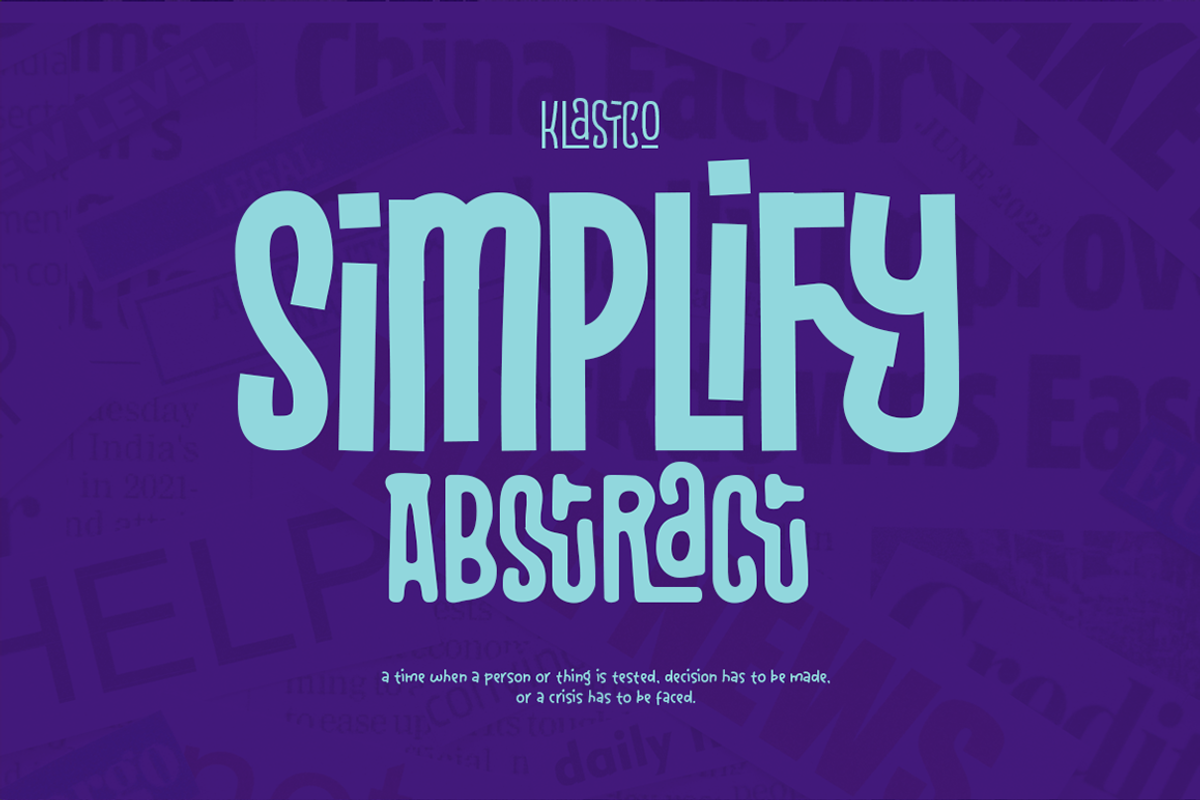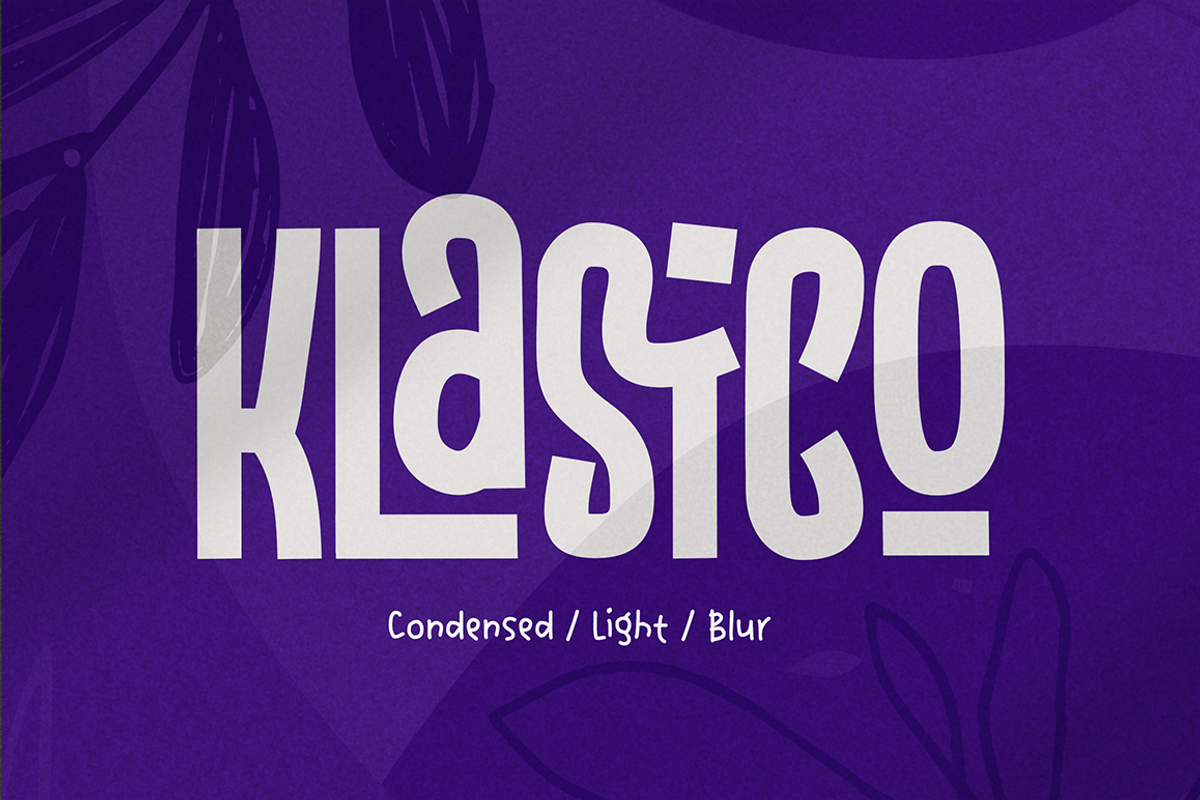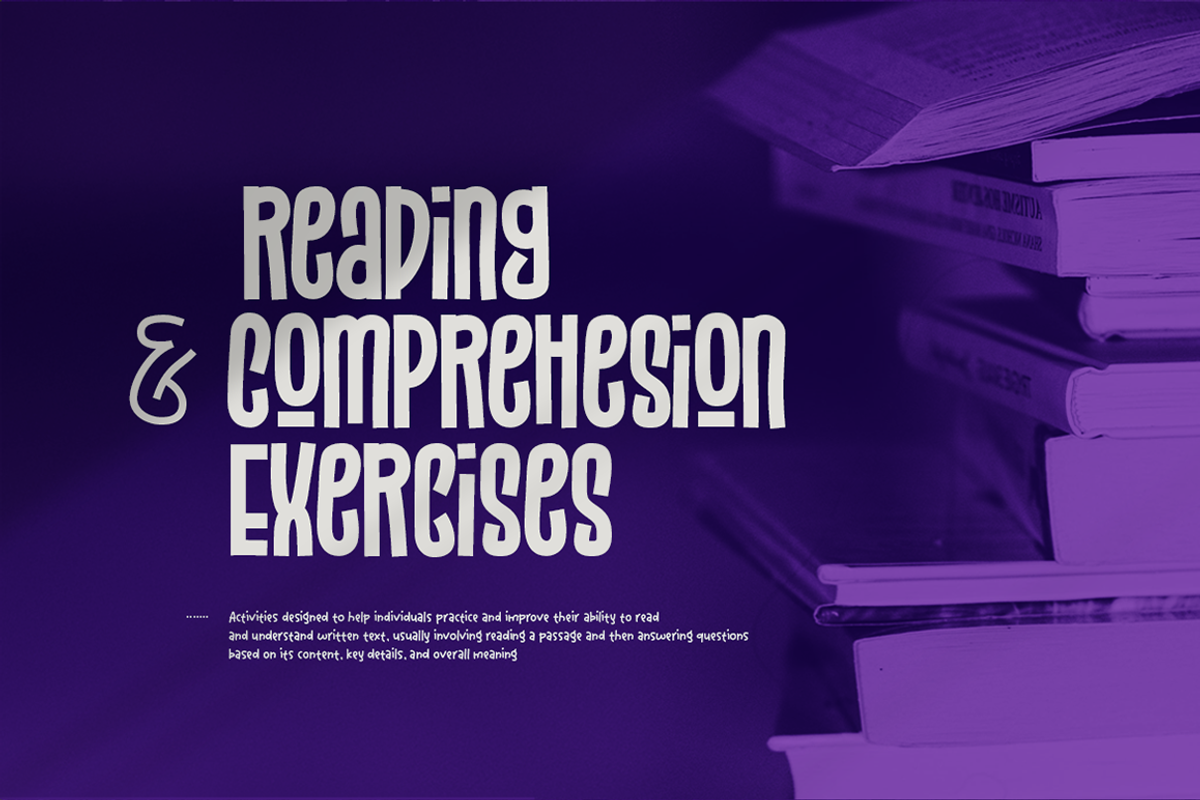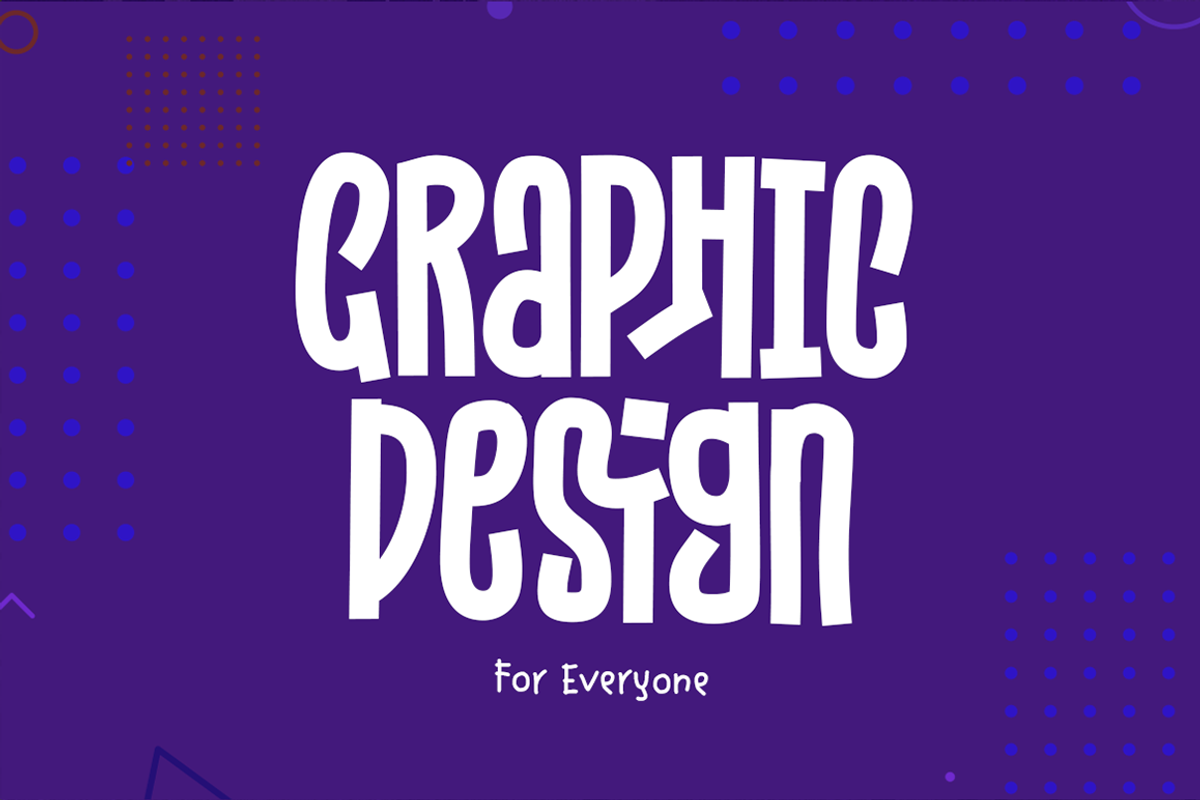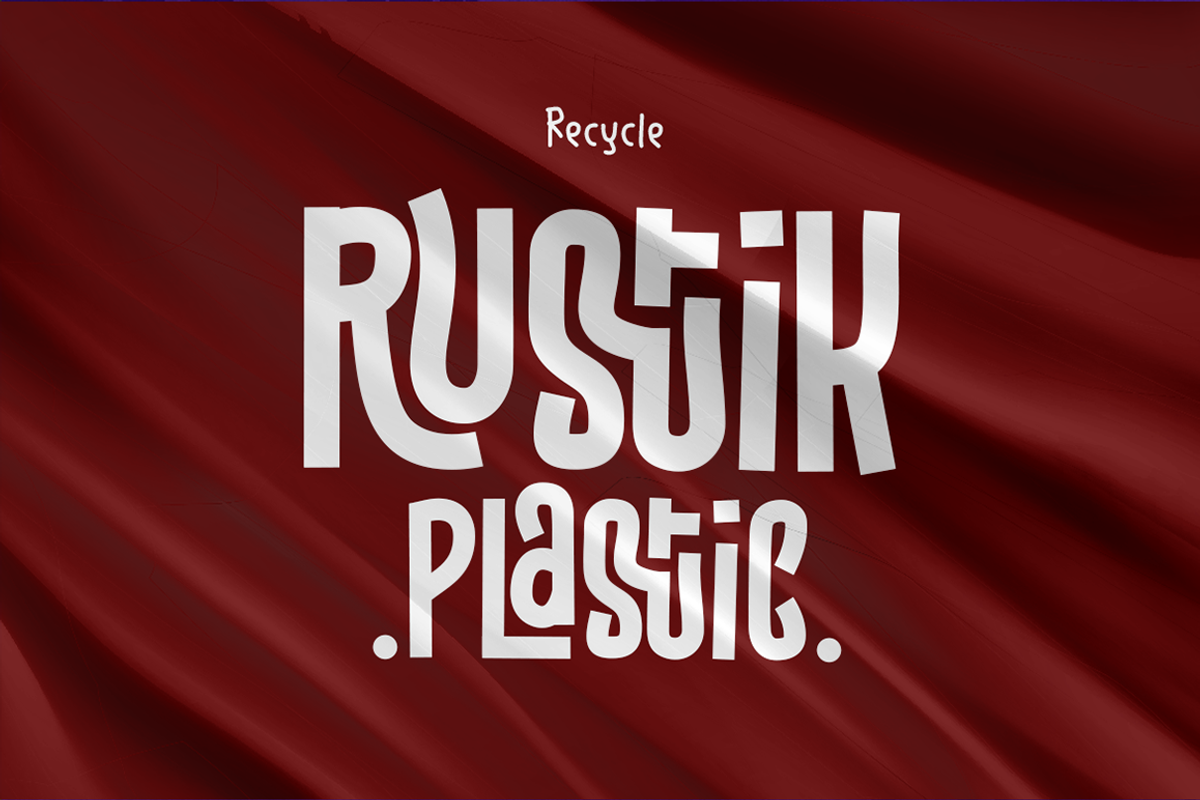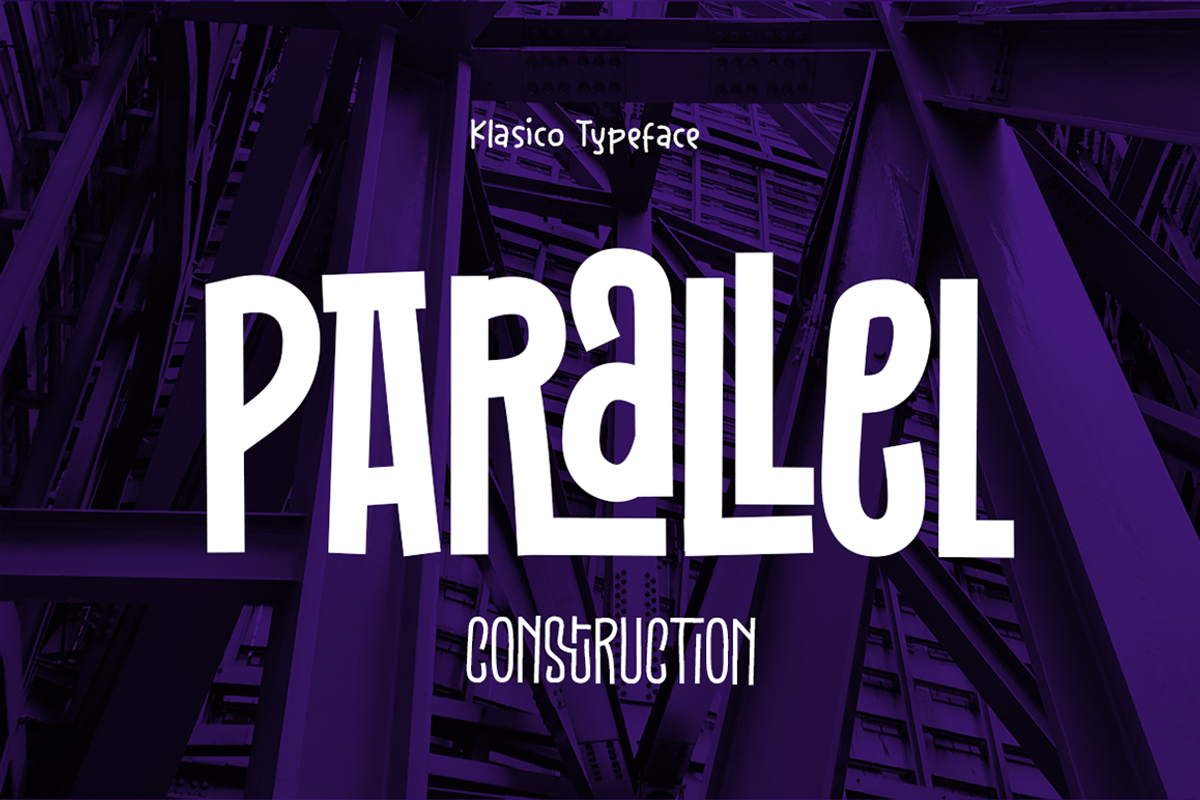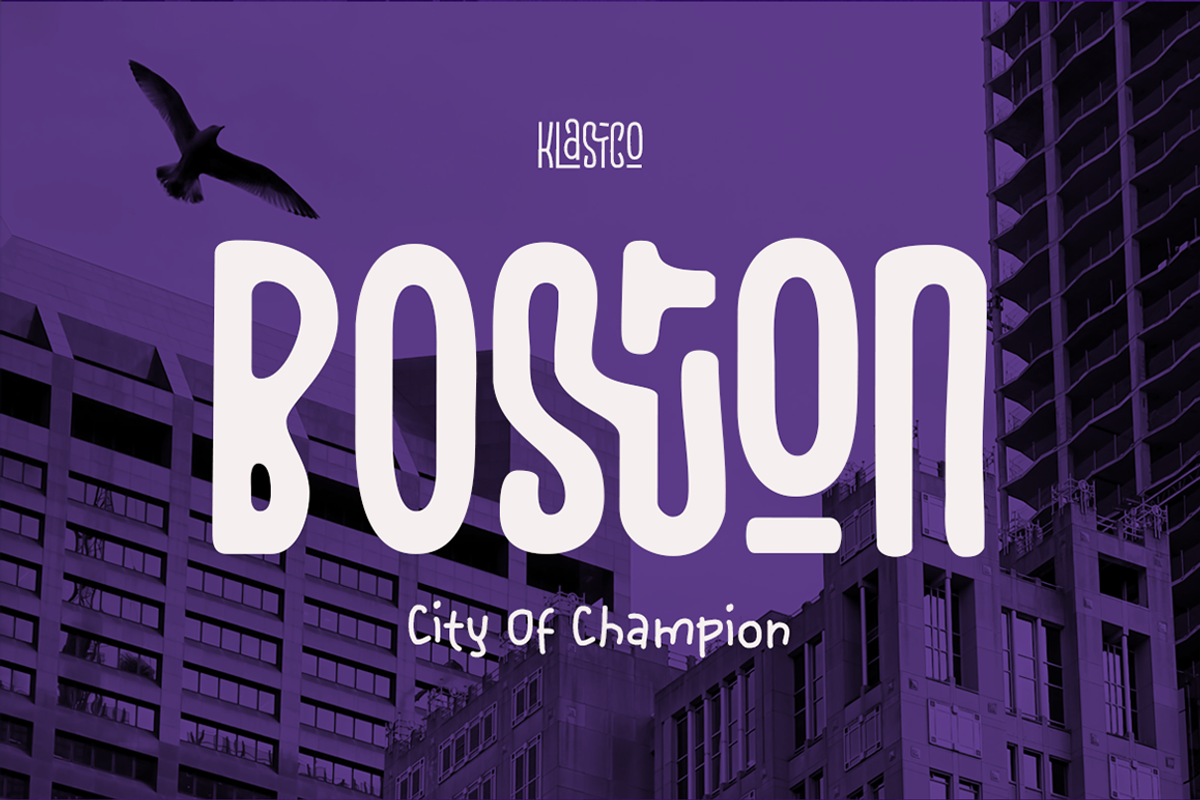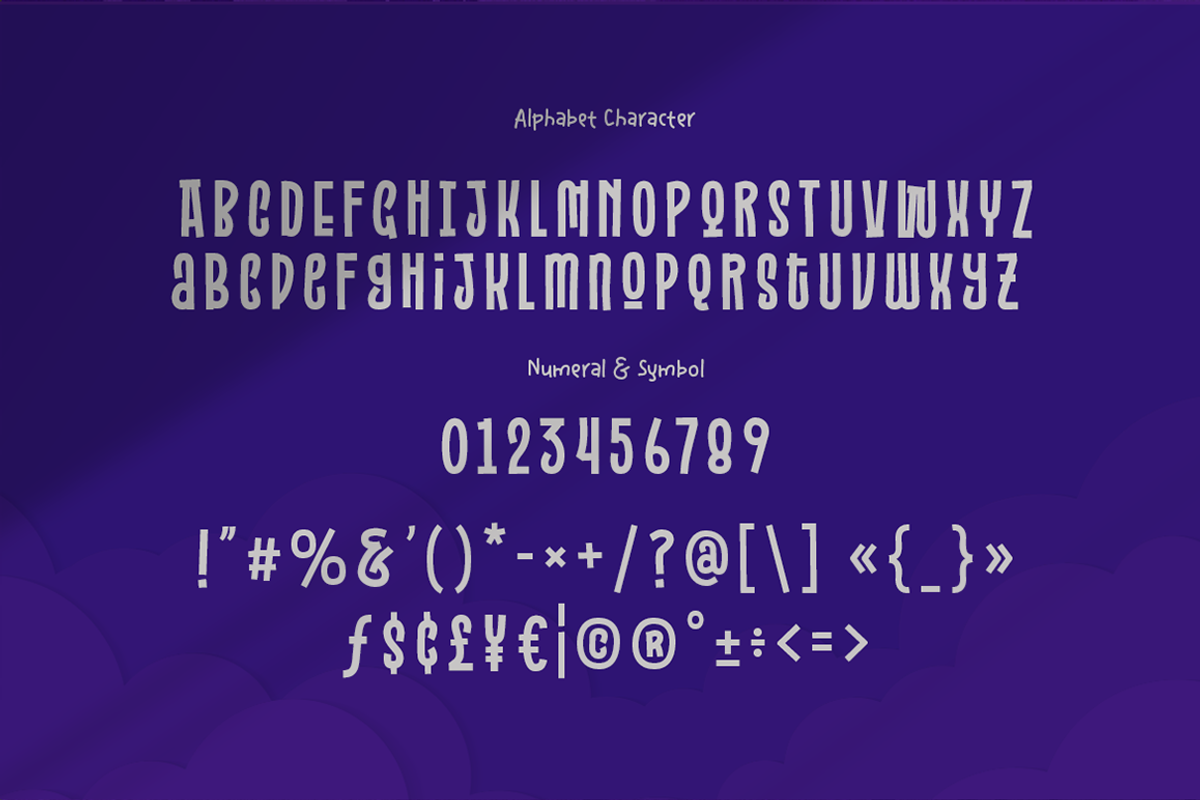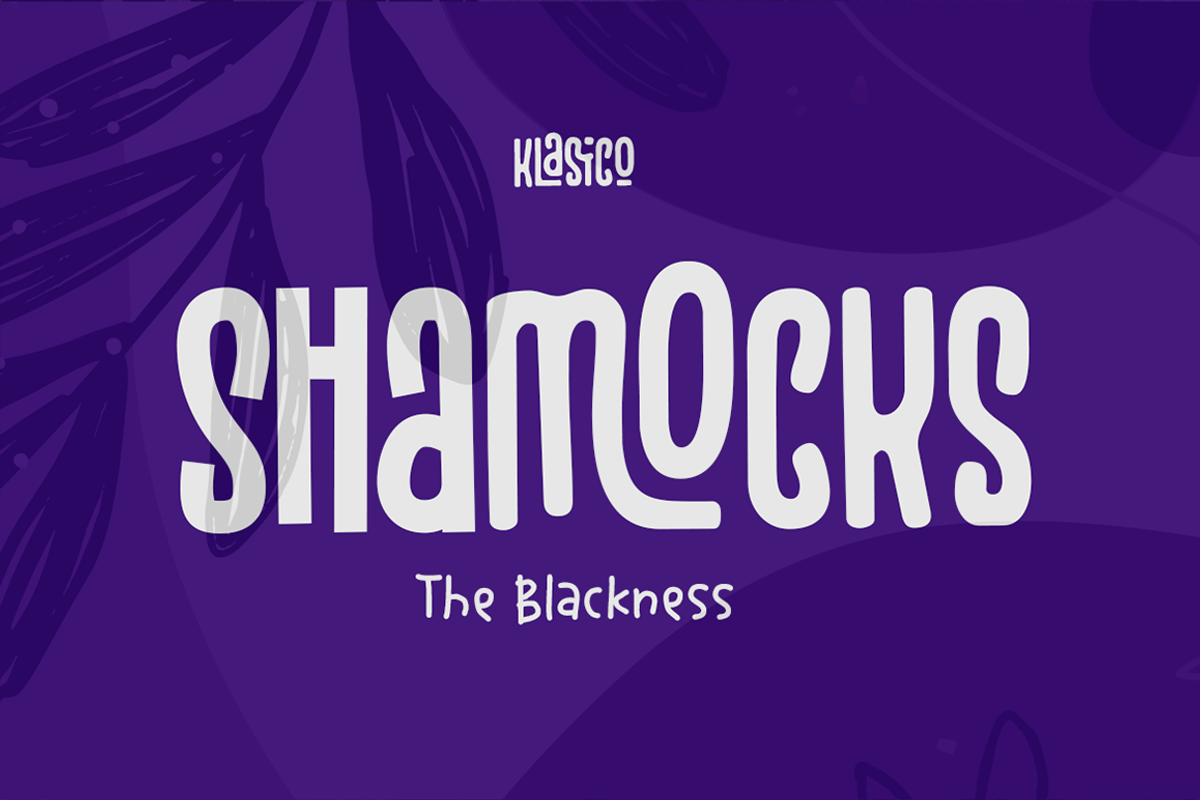
Klasico Condensed Font
Klasico is a decorative, condensed typeface that blends modern elegance with a touch of handwritten charm. Designed to stand out, this unique font features a refined structure with sleek lines and an artistic flow, making it perfect for branding, editorial designs, and sophisticated typography. Available in three distinct styles—Regular, Light, and Blur—Klasico offers versatility for various design needs. The Regular style provides a balanced yet expressive look, while the Light version enhances delicacy and refinement. The Blur style introduces a soft, dreamy effect, adding a contemporary edge to artistic projects. Klasico is an excellent choice for designers seeking a font that exudes sophistication, creativity, and modern aesthetics.
- Unique Condensed Decorative Font
- Creative Ligatures
- Basic Latin Glyphs
- Elegant and Stylish
- Currencies